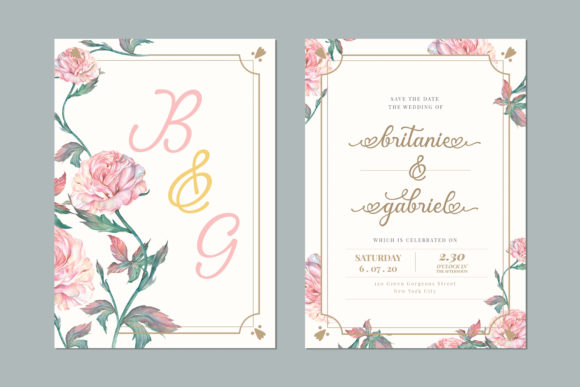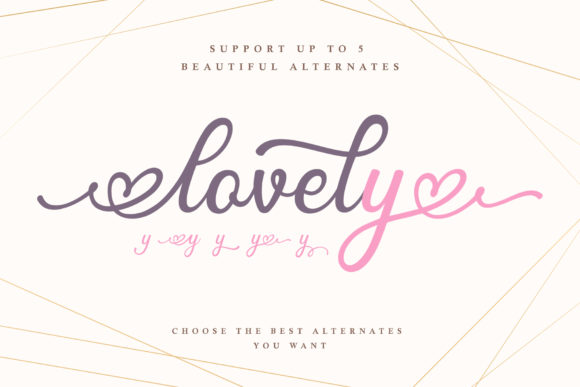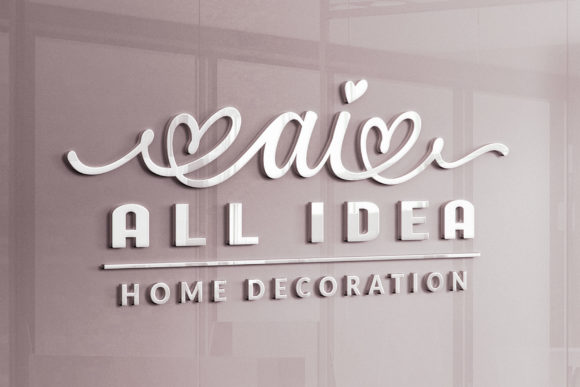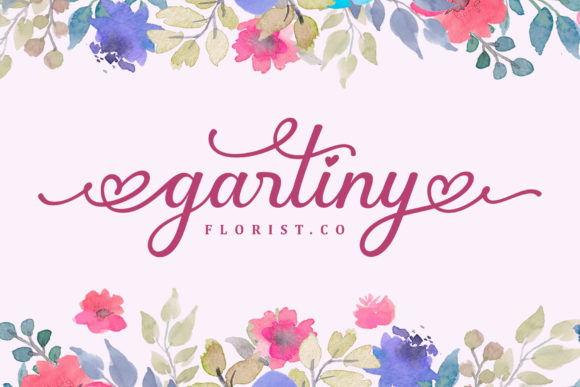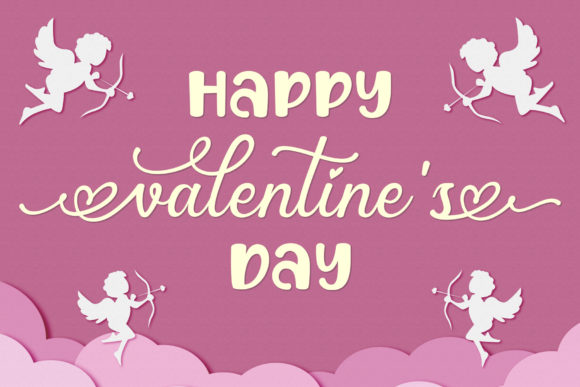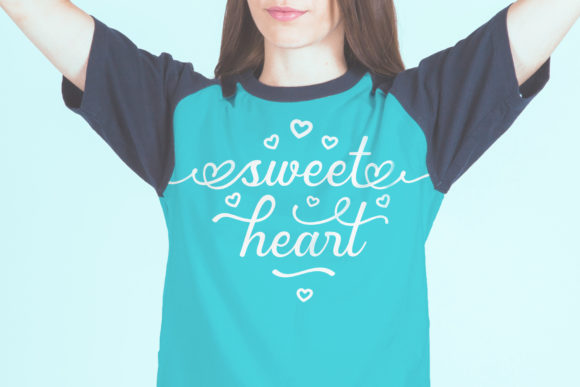
Discover the Charm of Ardila Font: A Romantic Calligraphy Font for Your Crafts
Are you a designer or crafter looking for a font that adds a touch of romance and whimsy to your projects? Look no further than the Ardila Font. This beautiful calligraphy font is perfect for anyone who wants to create stunning craft designs that exude love and elegance. In this article, we’ll dive into the features and benefits of Ardila Font, and explore how it can elevate your crafting and design projects.
What is Ardila Font?
Ardila Font is a romantic calligraphy font that feels lovely and elegant. Its beautiful, flowing script is perfect for creating eye-catching craft designs that capture the heart. With its whimsical and heartsy swashes, Ardila Font adds a decorative touch to any project, making it ideal for designers and crafters who want to create something special.
Key Features of Ardila Font
- Whimsical Swashes: Ardila Font features incredibly whimsical heartsy swashes that add a touch of romance and playfulness to any design.
- Calligraphy Style: This font boasts a beautiful calligraphy style that is perfect for creating elegant and sophisticated craft designs.
- Decorative Touch: The swashes and flourishes in Ardila Font add a decorative touch to any project, making it perfect for designers and crafters who want to create something unique.
Benefits of Using Ardila Font
So, why choose Ardila Font for your craft designs? Here are just a few benefits of using this beautiful font:
- Elegance and Sophistication: Ardila Font adds a touch of elegance and sophistication to any project, making it perfect for special occasions and events.
- Romantic Feel: The whimsical swashes and heartsy flourishes in Ardila Font give it a romantic feel that’s perfect for Valentine’s Day, weddings, and other love-themed projects.
- Versatility: Ardila Font can be used for a wide range of craft designs, from paper crafting and scrapbooking to card making and journaling.
How to Use Ardila Font in Your Craft Designs
Using Ardila Font in your craft designs is easy. Here are a few tips to get you started:
- Pair with Other Fonts: Ardila Font pairs beautifully with other fonts, so don’t be afraid to experiment with different combinations.
- Use for Titles and Headings: The elegant and sophisticated style of Ardila Font makes it perfect for titles and headings in your craft designs.
- Add Swashes and Flourishes: The whimsical swashes and heartsy flourishes in Ardila Font are perfect for adding a decorative touch to your designs.
Tips and Inspiration for Designers and Crafters
Need some inspiration for using Ardila Font in your craft designs? Here are a few tips and ideas to get you started:
- Create a Romantic Card: Use Ardila Font to create a romantic card for Valentine’s Day or a loved one’s birthday.
- Make a Beautiful Journal Page: Add Ardila Font to a journal page for a touch of elegance and sophistication.
- Design a Wedding Invitation: The elegant and sophisticated style of Ardila Font makes it perfect for wedding invitations and other wedding stationery.
In conclusion, Ardila Font is a beautiful and romantic calligraphy font that’s perfect for designers and crafters who want to add a touch of elegance and whimsy to their projects. With its whimsical swashes and heartsy flourishes, Ardila Font is sure to become a favorite in your font collection. So why wait? Download Ardila Font today and start creating stunning craft designs that capture the heart.